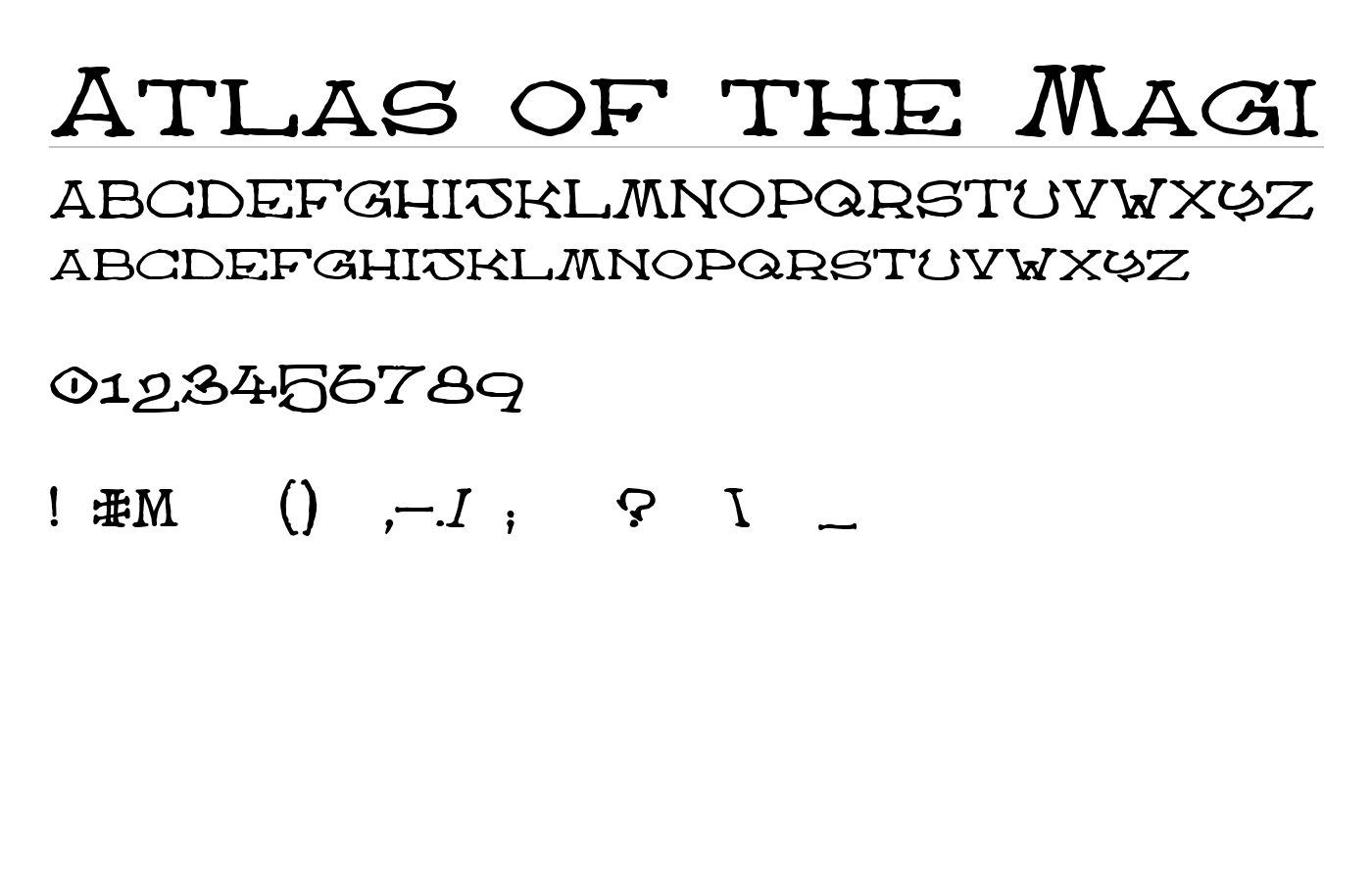
Atlas of the Magi is a whimsical serif font with a hand-crafted, slightly gothic feel characterized by irregular strokes and distinctive, quirky letterforms. Its playful yet mysterious style makes it perfect for fantasy-themed projects, book covers, and creative branding that seeks to evoke a magical or old-world charm. This font works well in headlines and display uses where its unique personality can stand out and capture attention.
Atlas of the Magi Font
About Atlas of the Magi Font
| Font family | Atlas of the Magi Font |
| Designer | S. John Ross |